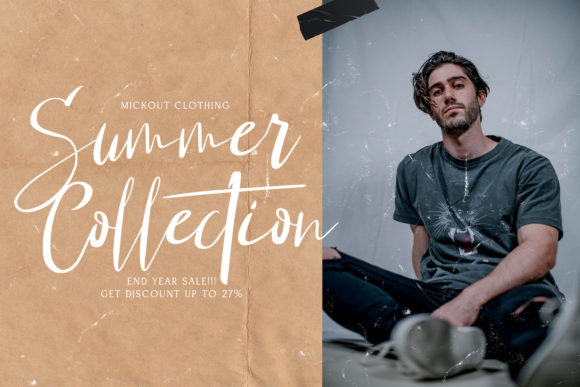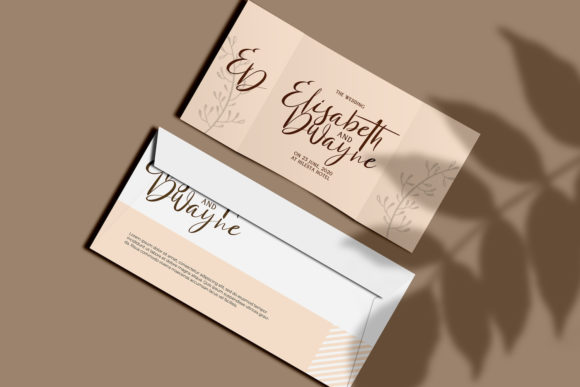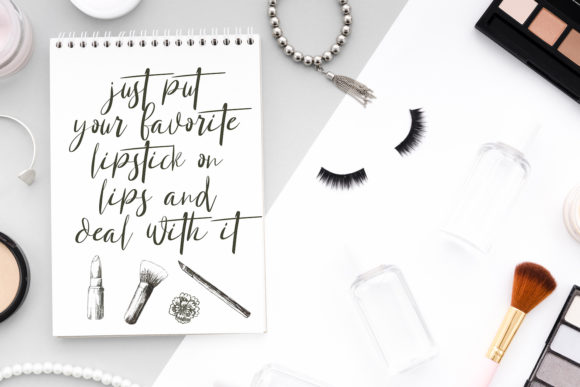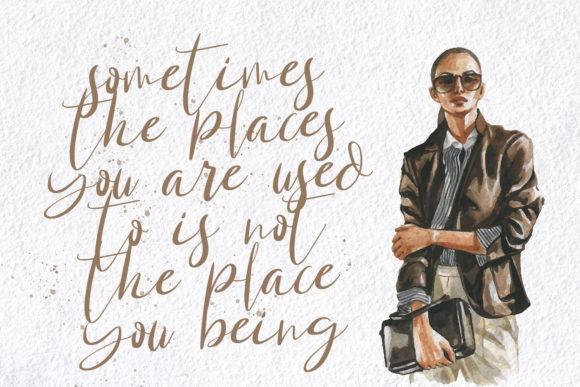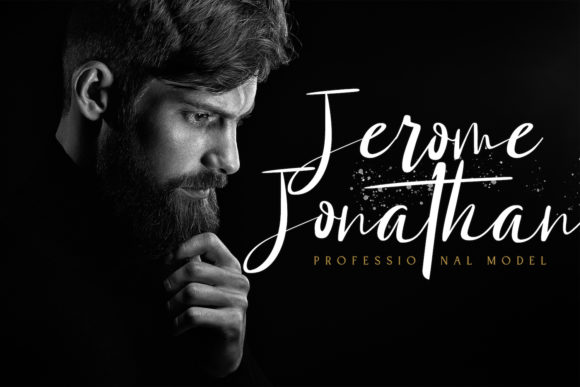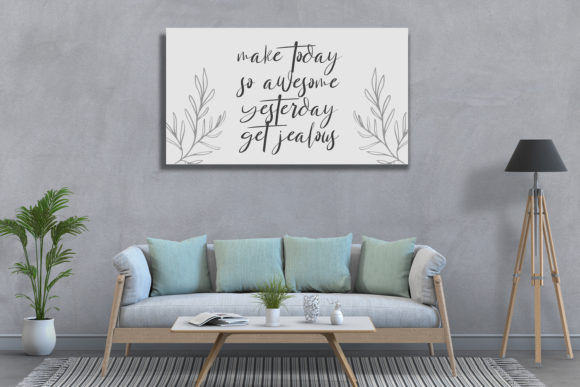
Introduction to Shanti Creny Font
Shanti Creny is a modern script font.
It will elevate a wide range of design projects to the highest level, be it branding, headings, wedding designs, invitations, signatures, logos, labels, and much more This font is PUA encoded which means you can access all of the glyphs and swashes with ease.